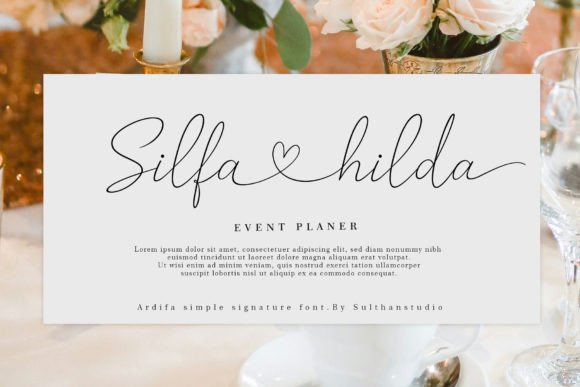
Introducing Ardifa Font: The Perfect Blend of Modernity and Elegance
In the world of typography, fonts play a crucial role in conveying the tone and personality of a brand or message. With the numerous font styles available, finding the perfect one that combines modernity, elegance, and readability can be a daunting task. However, if you’re looking for a font that embodies these qualities, look no further than Ardifa Font. In this article, we’ll explore the features, benefits, and uses of Ardifa Font, and why it’s becoming a popular choice among designers and marketers.
What is Ardifa Font?
Ardifa Font is a simple signature font that boasts a fresh, modern, and natural handwriting style. Its unique blend of calligraphy and handwriting elements makes it an excellent choice for a wide range of design projects. The font’s creator aimed to design a typeface that is not only visually appealing but also highly legible, making it perfect for use in various contexts, from branding and logos to social media and quotes.
Key Features of Ardifa Font
• Modern Handwriting Style: Ardifa Font features a modern handwriting style that is both fresh and elegant.
• High Legibility: The font’s clear and simple design ensures that it is easy to read, making it perfect for use in body text or headings.
• Calligraphy Elements: Ardifa Font incorporates calligraphy elements, giving it a touch of sophistication and elegance.
• Versatile: The font is suitable for a wide range of design projects, from branding and logos to social media graphics and quotes.
Uses of Ardifa Font
Ardifa Font is an incredibly versatile typeface that can be used in various design projects. Here are some of the most popular uses of Ardifa Font:
• Branding: Ardifa Font is perfect for creating brand identities, including logos, business cards, and letterheads.
• Logos: The font’s unique style makes it an excellent choice for creating custom logos that stand out.
• Signatures: Ardifa Font can be used to create elegant and professional signatures for emails, documents, and more.
• Quotes: The font’s calligraphy elements make it perfect for creating visually appealing quotes for social media, blogs, or marketing materials.
• Social Media: Ardifa Font can be used to create engaging social media graphics, including Facebook posts, Instagram stories, and Twitter headers.
Benefits of Using Ardifa Font
Ardifa Font offers several benefits that make it an attractive choice for designers and marketers. Here are some of the most significant advantages of using Ardifa Font:
• Unique Style: Ardifa Font’s modern handwriting style sets it apart from other fonts, making it perfect for brands that want to stand out.
• High Readability: The font’s clear design ensures that it is easy to read, even at small sizes.
• Elegance: Ardifa Font’s calligraphy elements give it a touch of elegance, making it perfect for high-end brands or luxury products.
• Versatility: The font’s versatility makes it suitable for a wide range of design projects, from print to digital.
Tips for Using Ardifa Font
To get the most out of Ardifa Font, here are some tips to keep in mind:
• Use it sparingly: Ardifa Font is a statement font, so use it sparingly to avoid overwhelming the reader.
• Pair it with a sans-serif font: Pairing Ardifa Font with a sans-serif font can create a nice contrast and improve readability.
• Experiment with colors: Ardifa Font looks great in a variety of colors, so experiment with different hues to find the perfect one for your design.
In conclusion, Ardifa Font is a unique and versatile typeface that offers a perfect blend of modernity, elegance, and readability. Its fresh handwriting style, calligraphy elements, and high legibility make it an excellent choice for a wide range of design projects, from branding and logos to social media and quotes. By following the tips outlined in this article, you can get the most out of Ardifa Font and create stunning designs that capture the attention of your audience.
Final Thoughts
Ardifa Font is a valuable addition to any designer’s font library. Its unique style, high readability, and elegance make it a go-to font for designers and marketers looking to create visually appealing designs. Whether you’re working on a branding project, creating social media graphics, or designing a logo, Ardifa Font is definitely worth considering.